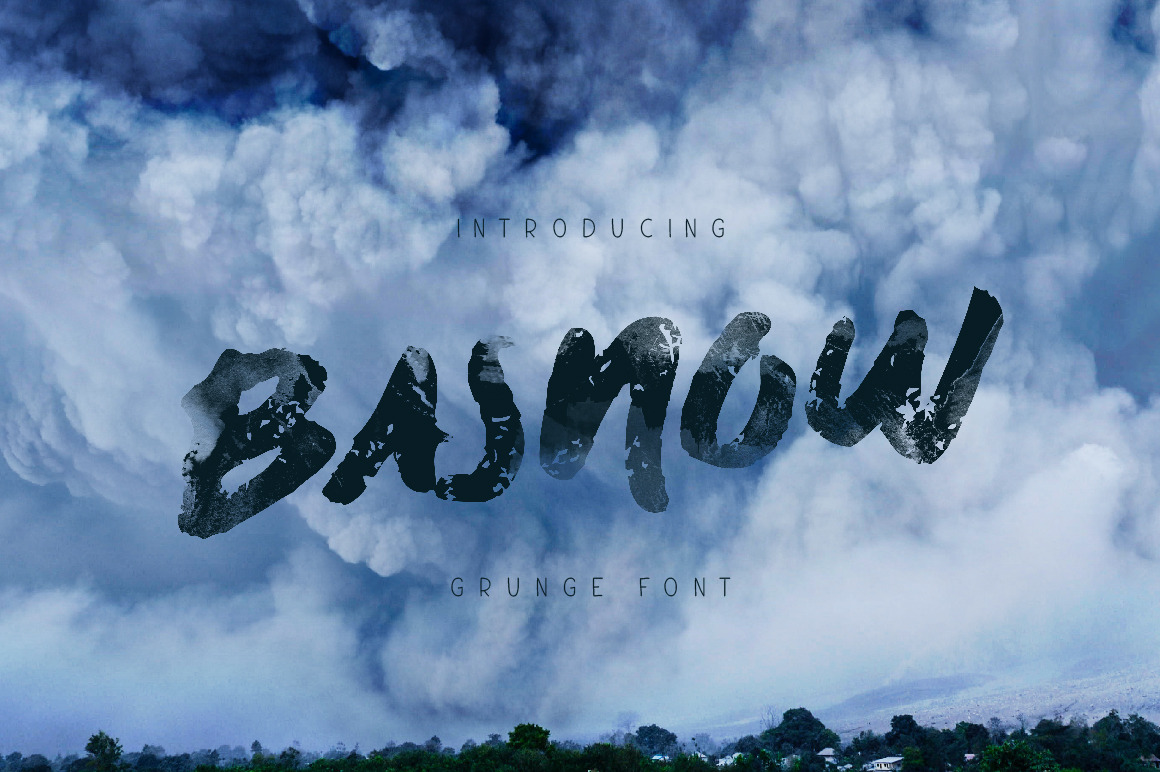
Basnow Grunge Font
Basnow Grunge Font comes with all caps uppercase and lowercase characters, large set of punctuation glyphs and numerals.
Ideal for handwritten quotes, logos, product packaging, t-shirt, print, header, poster and applicable for any graphic design.